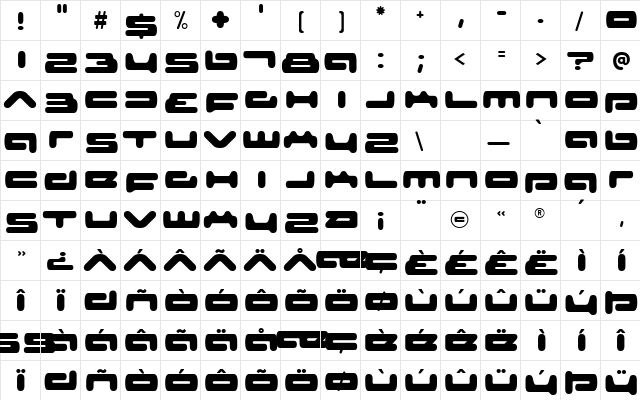
Senior Service Regular
Design Context for Senior Service Typeface
Senior Service is a composed and adaptable typeface that performs quietly and consistently across a wide range of design contexts.